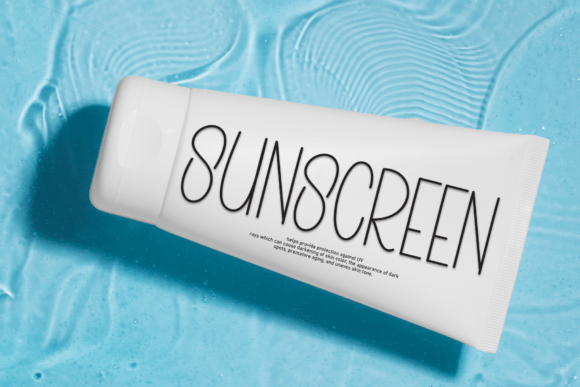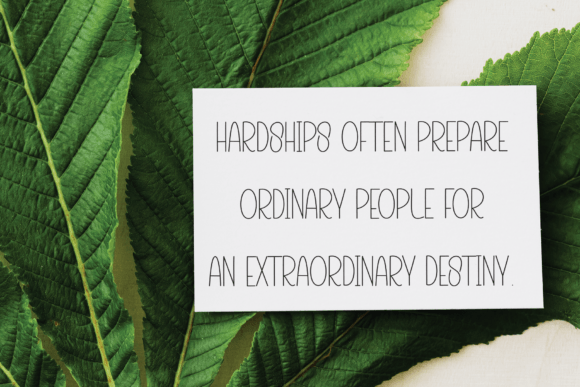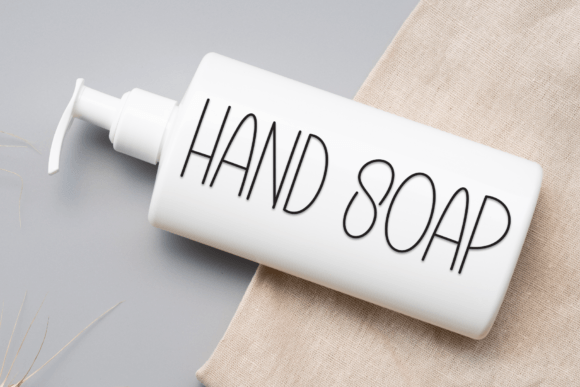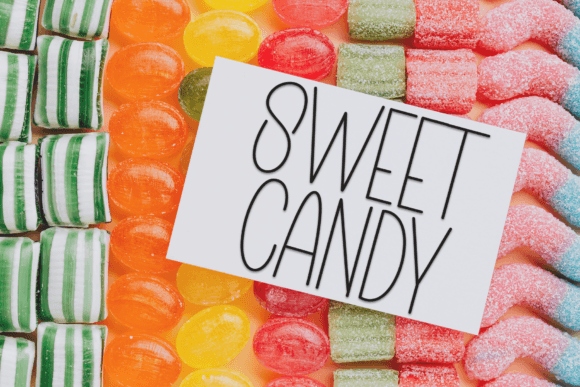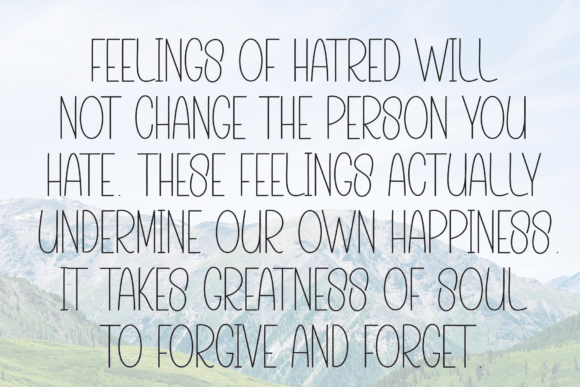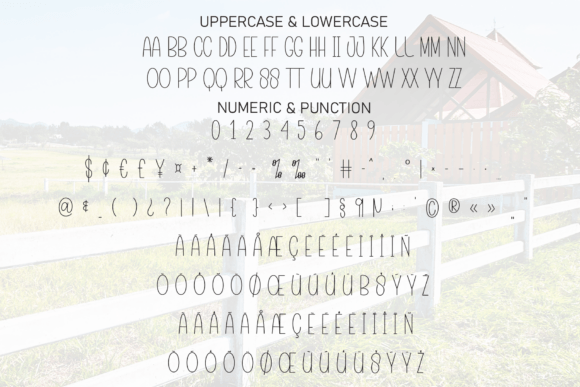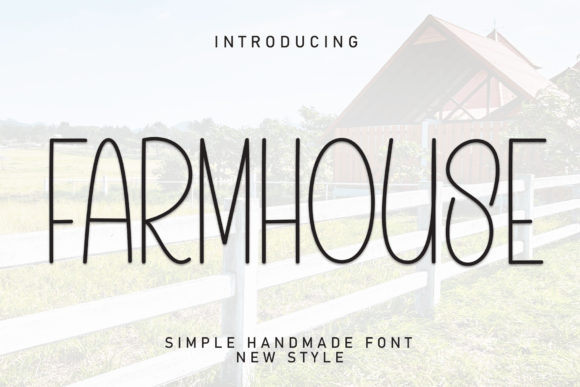
Introducing Farmhouse Font: The Charmingly Whimsical Handwritten Display Font
Are you looking for a font that exudes sweetness and friendliness? Do you want to add a playful flair to your designs and turn the ordinary into whimsical wonders? Look no further than Farmhouse Font, the charmingly whimsical handwritten display font that’s perfect for personalizing wedding invitations, embellishing cards, and adding a delightful twist to any design imaginable.
Farmhouse Font is a unique and adorable handwritten display font that’s brimming with cuteness and fun. Its whimsical design makes it perfect for designers and crafters who want to add a touch of personality to their projects. Whether you’re creating wedding invitations, greeting cards, or social media graphics, Farmhouse Font is sure to make your designs stand out.
Characteristics of Farmhouse Font
So, what makes Farmhouse Font so special? Here are some of its key characteristics:
- Whimsical design: Farmhouse Font has a playful and whimsical design that’s perfect for creating unique and eye-catching designs.
- Handwritten feel: The font has a handwritten feel that gives it a personal and friendly touch.
- Cute and fun: Farmhouse Font is brimming with cuteness and fun, making it perfect for designs that require a playful flair.
- Versatile: The font is versatile and can be used for a wide range of design projects, from wedding invitations to social media graphics.
Uses of Farmhouse Font
Farmhouse Font is a versatile font that can be used for a wide range of design projects. Here are some of the ways you can use it:
- Wedding invitations: Farmhouse Font is perfect for personalizing wedding invitations and making them stand out.
- Greeting cards: The font is great for embellishing greeting cards and making them more special.
- Social media graphics: Farmhouse Font can be used to add a playful flair to social media graphics and make them more engaging.
- Signs and posters: The font is perfect for creating eye-catching signs and posters that require a whimsical touch.
Here are some tips for using Farmhouse Font effectively:
- Use it sparingly: Farmhouse Font is a bold font, so it’s best to use it sparingly to avoid overwhelming your design.
- Pair it with other fonts: The font pairs well with other fonts, so feel free to experiment with different combinations.
- Experiment with colors: Farmhouse Font looks great in a variety of colors, so don’t be afraid to experiment and find the perfect color for your design.
Farmhouse Font is a charmingly whimsical handwritten display font that’s perfect for designers and crafters who want to add a playful flair to their designs. Its unique and adorable design makes it perfect for personalizing wedding invitations, embellishing cards, and adding a delightful twist to any design imaginable. With its versatility and whimsical charm, Farmhouse Font is sure to become a favorite in your font collection.